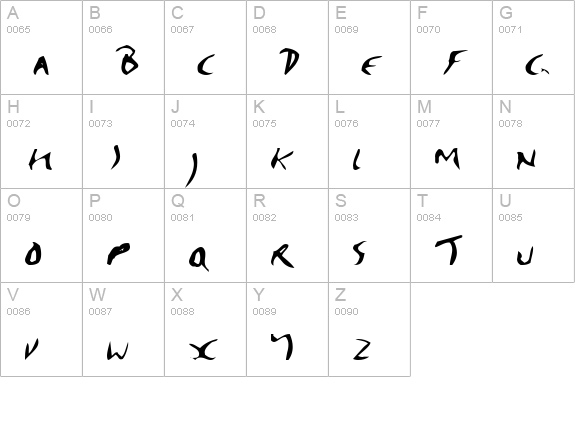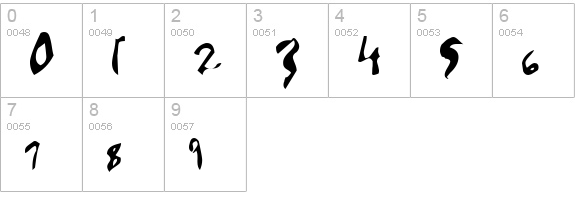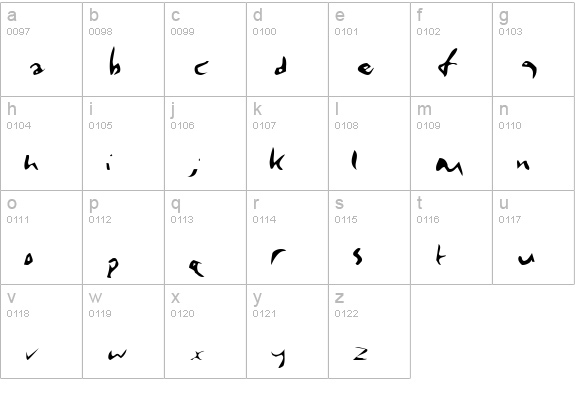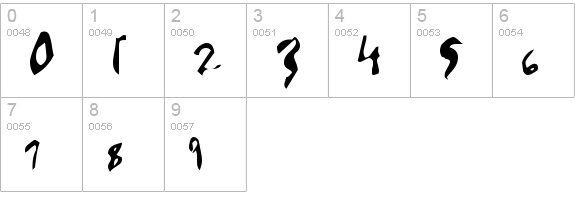
Enya Font Details
Enya Font is a modern and elegant typeface that exudes sophistication and style. With its sleek lines and graceful curves, Enya Font is perfect for a wide range of design projects, from branding to packaging to advertising. This versatile font is sure to make your text stand out and capture the attention of your audience. What's even better is that Enya Font is available for free download at FontsMarket.com. Now you can add this beautiful font to your collection without having to spend a dime. Don't miss out on this opportunity to enhance your designs with Enya Font's timeless elegance and charm. Download it now and start creating stunning visuals that will leave a lasting impression.